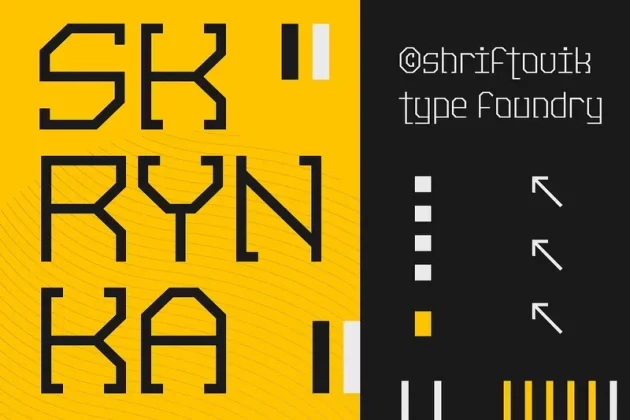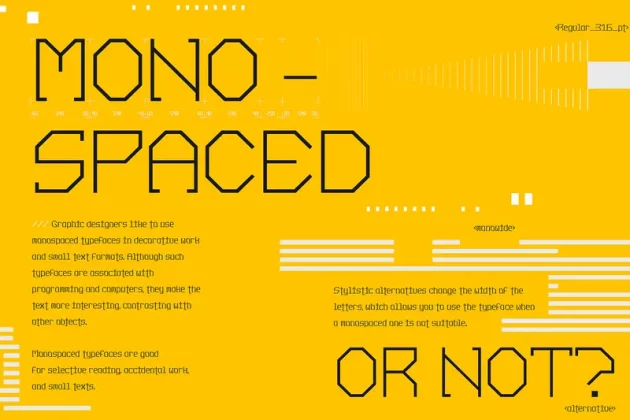
About SK Skrynka — Tech Geometric Font
SK Skrynka is a strict monospaced geometric accidental typeface. It absorbed both industrialism and simplicity, and futurism along with modernism. It is imbued with the spirit of the distant future and refers to the culture of cyberpunk. With its features, it resembles a computer’s electrical circuit and fits perfectly into a futuristic design. SK Skrynka font supports many languages: extended Latin (Western European, Eastern European and Central European, etc.), extended Cyrillic (Russian, Ukrainian, Belarusian, Serbian, etc.), Greek and even Hebrew. This allows you to use it in absolutely any direction and style of design. Also, this font has many stylistic alternatives that bring variety to the monospaced typeface, further expanding its expressive capabilities. The SK Skrynka typeface will look great in headlines, or in stylized text and will become a functional addition to design work or game design.